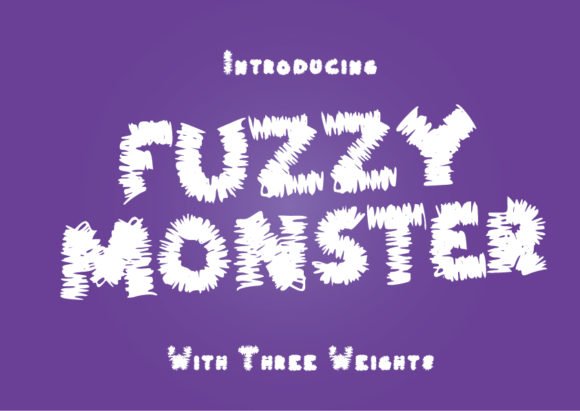
Get Ready to Roar with the Fuzzy Monster Font
As designers, we’ve all been there – staring at a blank canvas, trying to conjure up the perfect font to bring our creative vision to life. And then, it hits us – a spark of inspiration that sets our imagination ablaze. For some, it’s a burst of color, for others, it’s a quirky illustration. But for us, it’s often the perfect font that makes all the difference. And that’s exactly what we’re excited to introduce you to – the Fuzzy Monster Font, a fun and friendly font face that’s sure to bring a smile to your face.
With two weights to choose from, the Fuzzy Monster Font is the perfect addition to any design project. From playful posters to whimsical illustrations, this font is sure to add a touch of personality to your creations. And the best part? It’s available in both upper and lower case, numbers, and a range of symbols and punctuation, making it the ultimate design tool for any creative project.
Fuzzy Monster Font Key Features
- Font Family: Fuzzy Monster Font is a unique, handwritten font that offers a playful and quirky feel to any design.
- Unique Characteristics: Features a distressed, hand-drawn aesthetic with irregular lines, subtle texture, and imperfections, giving it a one-of-a-kind look.
- Font Style: Includes 2 font styles: Regular and Bold, offering flexibility for various design applications.
- Glyphs and Characters: Includes a comprehensive set of glyphs and characters, including uppercase and lowercase letters, numbers, and punctuation marks.
Fuzzy Monster Font Review
Fuzzy Monster Font is a quirky, playful font that adds a touch of whimsy to any design. I think it’s great for creating eye-catching headlines or titles that need a bit of extra flair ✨. The font’s irregular shapes and soft edges give it a friendly, approachable feel that’s perfect for child-friendly brands or educational materials.
- The font’s uniqueness is a major strength. It’s not something you see every day, and it can really help a design stand out.
- Fuzzy Monster Font is highly legible, even at smaller sizes. This makes it a great choice for body text or smaller headlines.
However, there are a few limitations to consider ⚠️. The font may not be the best choice for formal or professional designs, as it can come across as a bit too playful or childish. Additionally, the font’s irregular shapes can make it difficult to use in certain situations, such as in tight spaces or with small text.
Overall, I think Fuzzy Monster Font is a fun and versatile font that can add a lot of character to a design. While it may not be the best choice for every project, it’s definitely worth considering for designs that need a bit of extra personality ✨.
Tips for Getting the Most Out of Fuzzy Monster Font
Experiment with different font sizes, colors, and styles to create a unique visual effect. Use the font in combination with other design elements to add texture and interest to your design. Consider using the font in bold or italic styles to add emphasis to your text.
Common Use Cases for Fuzzy Monster Font
The Fuzzy Monster Font is ideal for use in children’s books, nursery decorations, and other designs that require a playful and whimsical touch. It can also be used in designs that require a sense of nostalgia or retro charm.